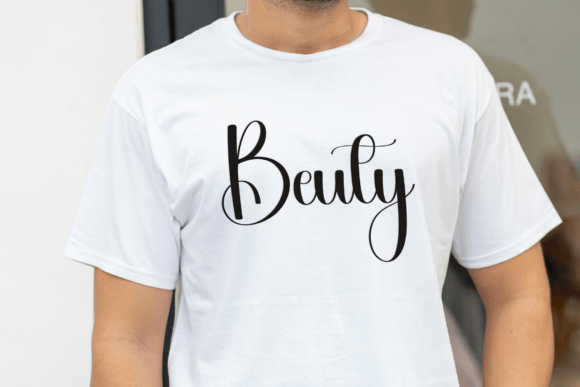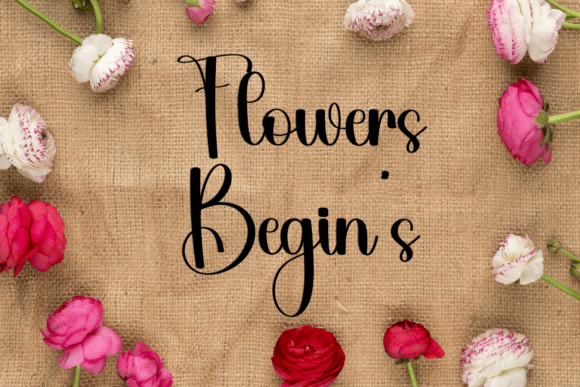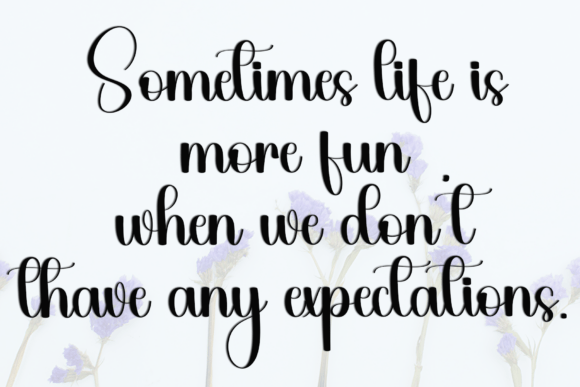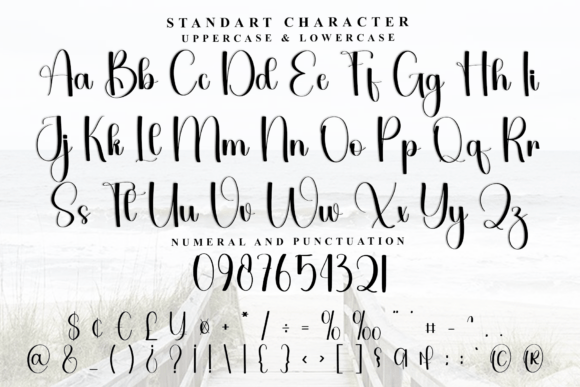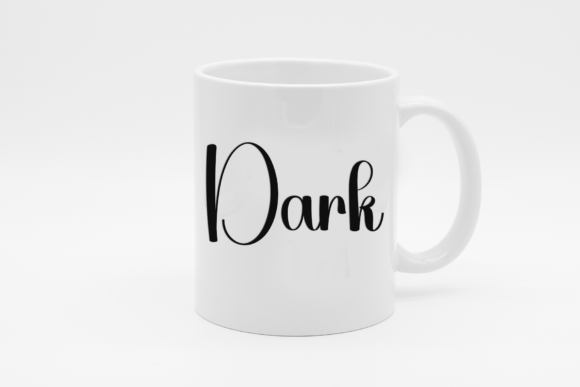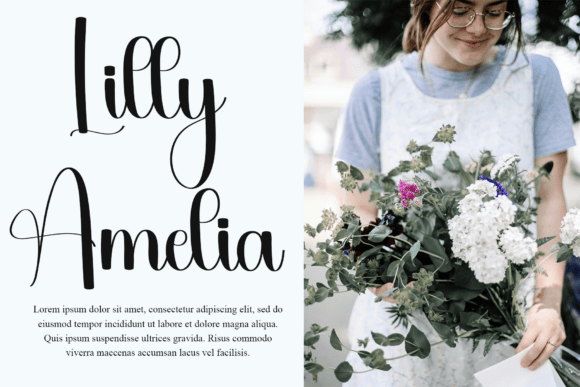
Drying Font: Elevate Your Designs with a Unique and Versatile Typeface
In the world of typography, a font can make or break a design. It’s the perfect blend of form and function, where aesthetics meet usability. For designers and crafters looking to add a touch of elegance and whimsy to their projects, the Drying Font is an excellent choice. This beautiful and eye-catching font is designed with a soft, unique touch that sets it apart from more traditional typefaces.
The Distinctive Character of Drying Font
The Drying Font boasts distinctive strokes that give it a special character, making it not only visually appealing but also meaningful and versatile for future use. Its unique design ensures that it stands out in any project, whether it’s used for a logo, a headline, or body text. The font’s softness adds a touch of warmth and approachability, making it perfect for designs that aim to connect with a wide audience.
For designers, the Drying Font opens up a world of possibilities. It can be used in:
- Logos and branding: The unique touch of this font can help create a memorable brand identity.
- Posters and flyers: Grab the attention of your audience with headlines that stand out.
- Web design: Enhance the user experience with a font that is both beautiful and readable.
- Social media graphics: Make your posts stand out on crowded feeds.
For crafters, it can add a professional touch to:
- Handmade product labels
- DIY project documentation
- Artisanal packaging
Why Choose Drying Font?
There are several reasons why the Drying Font should be your go-to choice for your next project:
- Unique Aesthetic: Its soft and distinctive strokes offer a fresh alternative to more common fonts.
- Versatility: Use it across various projects and applications.
- Engagement: Its appealing design can help attract and retain the attention of your audience.
Tips for Using Drying Font Effectively
To get the most out of the Drying Font, consider the following tips:
- Mix and Match: Combine it with other fonts for contrast and hierarchy.
- Play with Sizes: Use different sizes to create visual interest and emphasis.
- Experiment with Colors: While the font’s aesthetic is beautiful in black and white, experimenting with colors can add another layer of appeal.
- Consider Your Audience: Ensure that the font’s tone aligns with your message and appeals to your target audience.
The Drying Font is more than just a typeface; it’s a tool that can elevate your designs and crafts to new heights. Its unique blend of softness and distinctive character makes it a valuable asset for anyone looking to add a touch of elegance and whimsy to their work. With its versatility, compatibility, and wide range of applications, it’s an excellent choice for designers and crafters alike. So, why settle for ordinary when you can make your designs extraordinary with the Drying Font?
Whether you’re working on a professional project or a personal craft, the Drying Font is sure to enhance your creations, making them appealing to a wide audience across different artistic and creative fields. Embrace the beauty and versatility of the Drying Font, and watch your designs come to life in ways you never thought possible.